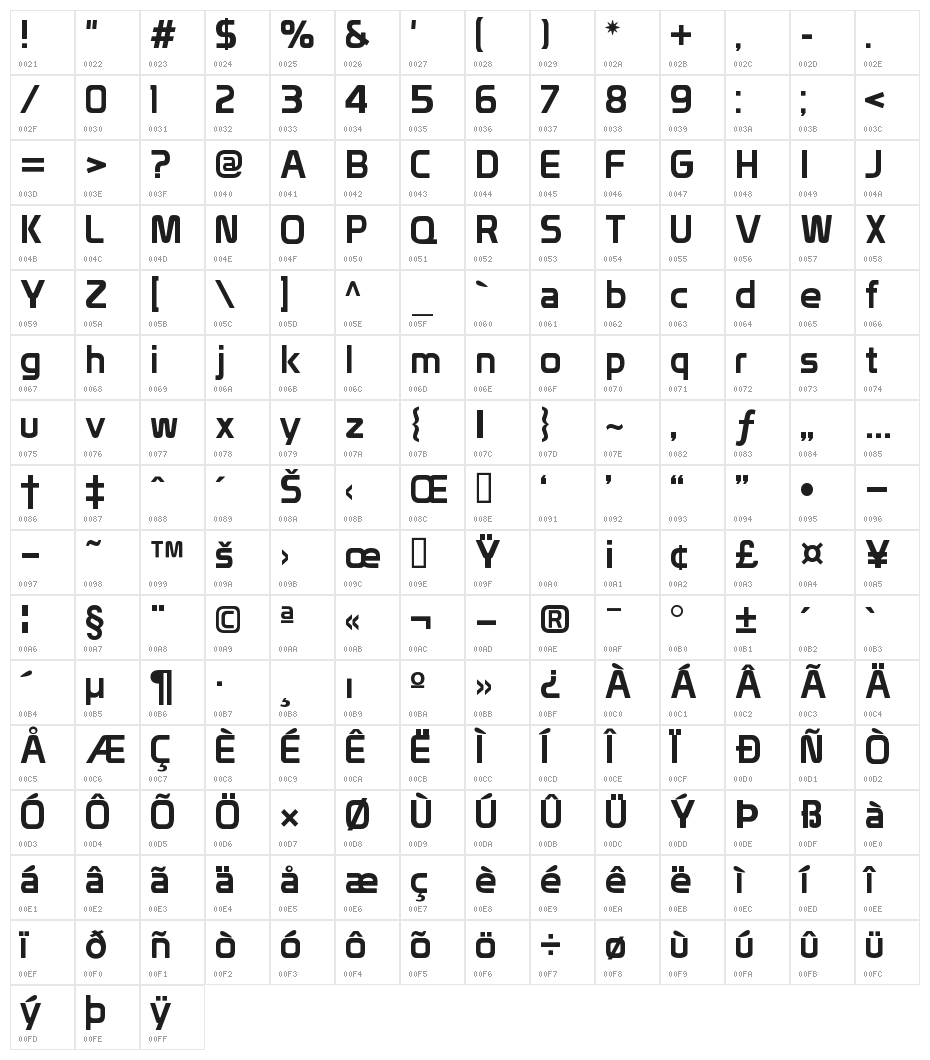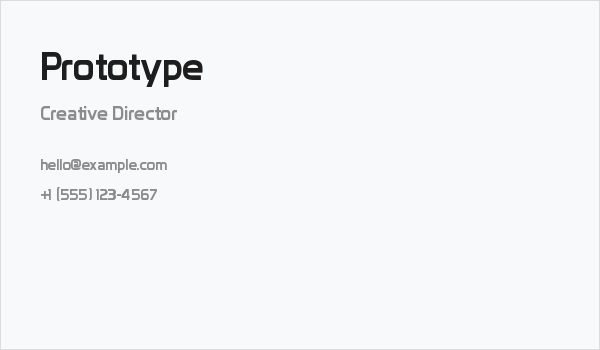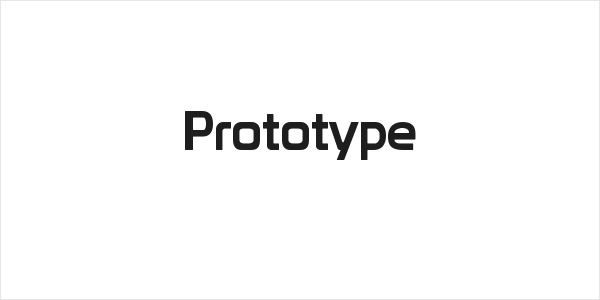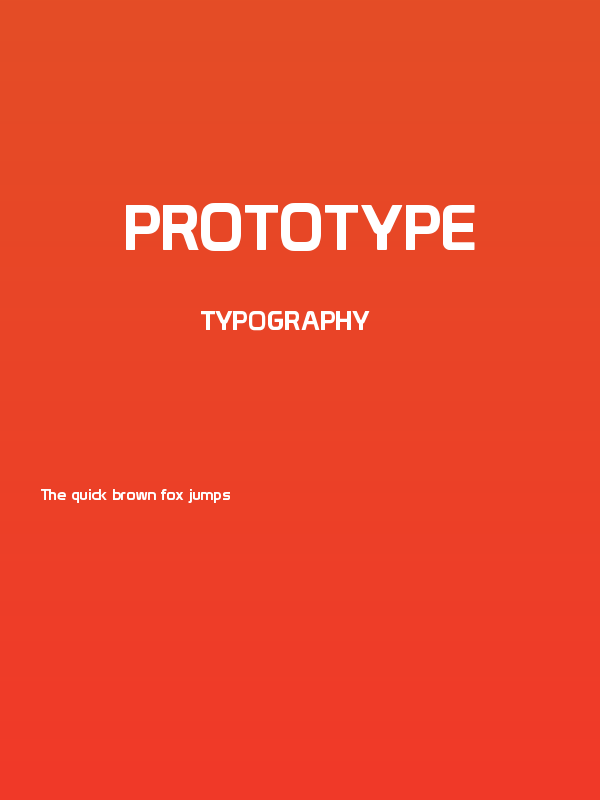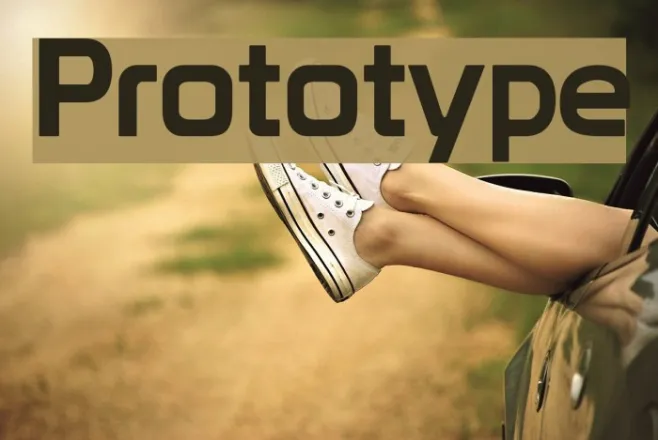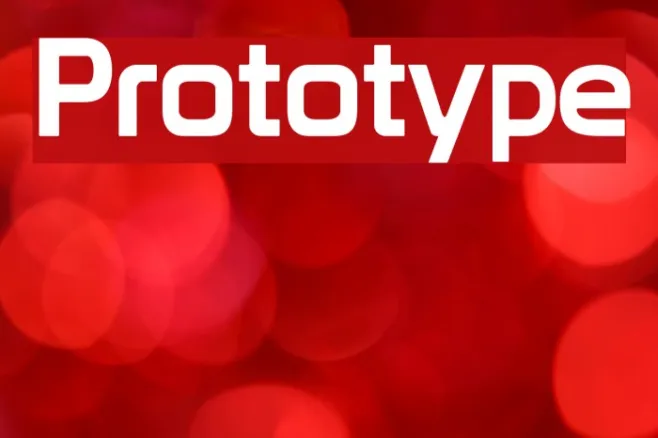
Prototype Font
Prototype Description
This font features a bold and modern sans-serif style with clean, geometric lines and a slightly condensed appearance. The characters are uniform in width, providing a balanced and cohesive look. The uppercase letters are strong and assertive, while the lowercase letters maintain a consistent height and width, enhancing readability. The numerals are clear and distinct, making them suitable for various applications. Special characters are well-defined, adding versatility to the font's use. Overall, this typeface exudes a contemporary and professional feel, ideal for digital and print media.
| Proposed Projects | Ideal for branding, digital interfaces, advertising, and editorial design. |